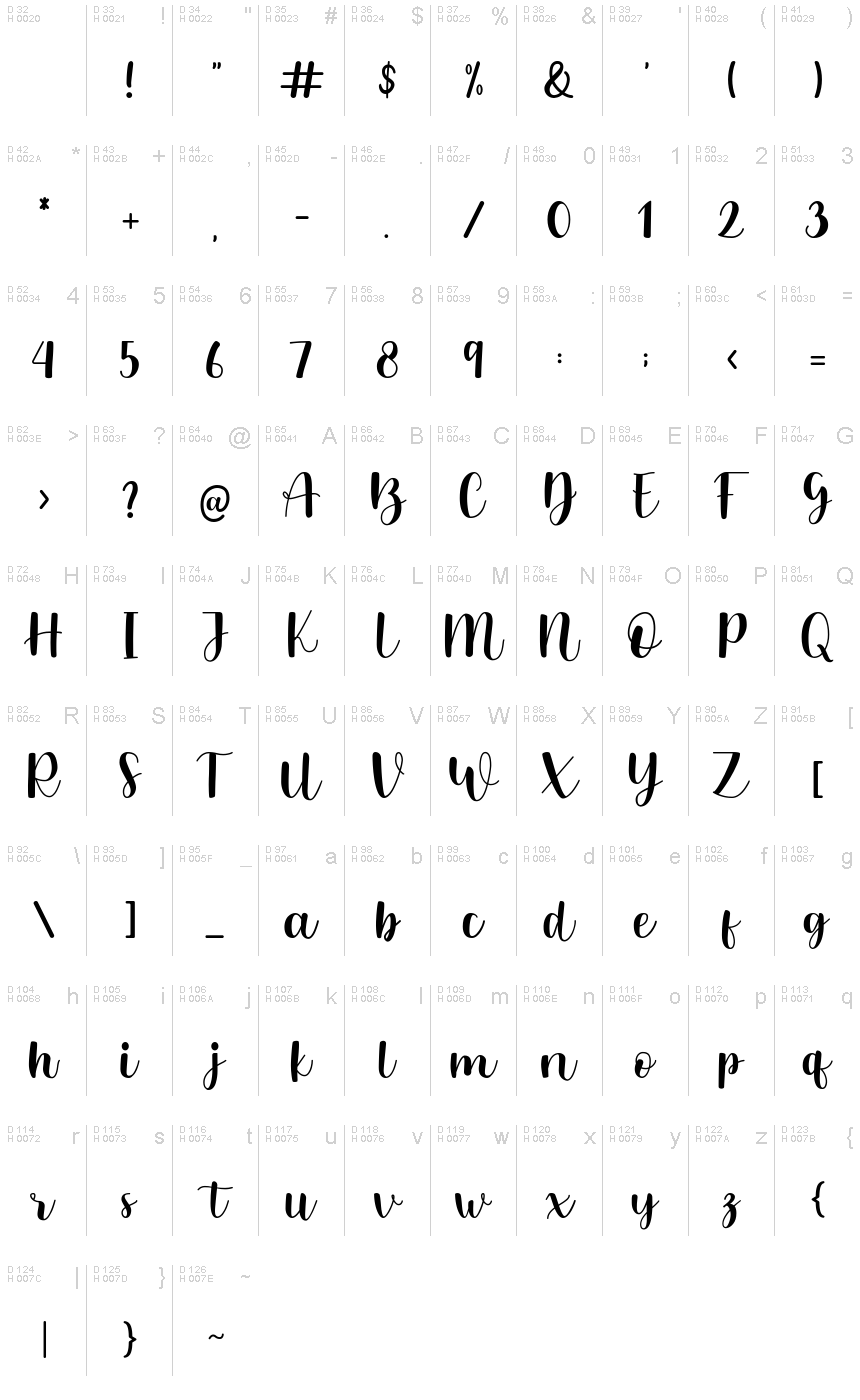
Mitta Sweety
Mitta Sweety is a captivating calligraphic font that exudes elegance and grace. Designed by Ikrar Bey Khubaib, this font showcases a harmonious blend of fluid strokes and delicate flourishes, creating a visually striking and highly versatile aesthetic. The gentle curves and looping ascenders lend an air of sophistication, while the seamless connection between letters conveys a sense of effortless flow.
This font is particularly well-suited for a wide range of design applications, from high-end branding and luxury packaging to invitations and event materials, where a touch of sophistication and charm is desired.